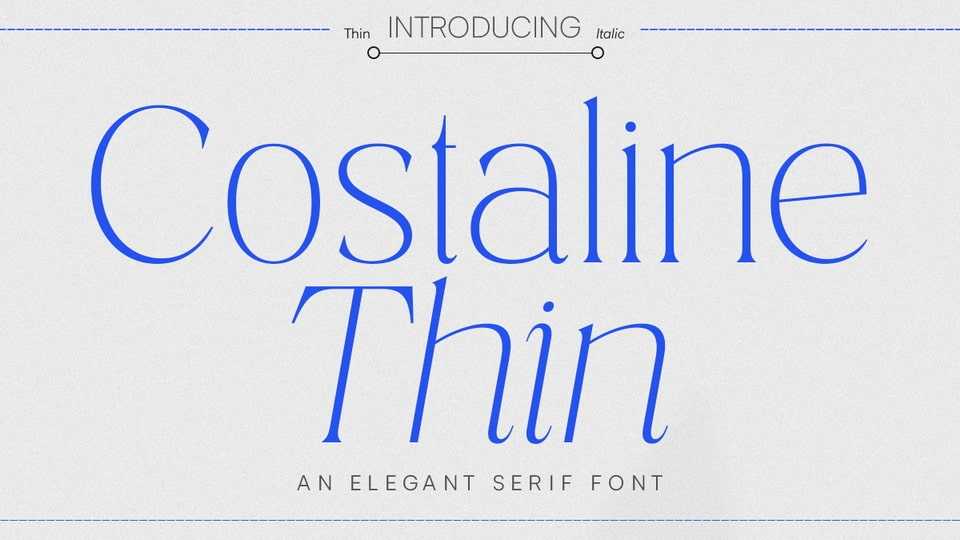
Download Costaline Font, a harmonious and stylish contemporary serif typeface with a classic feel. Thinner weights have lowered contrast and optical correction to create a warm and soft look.